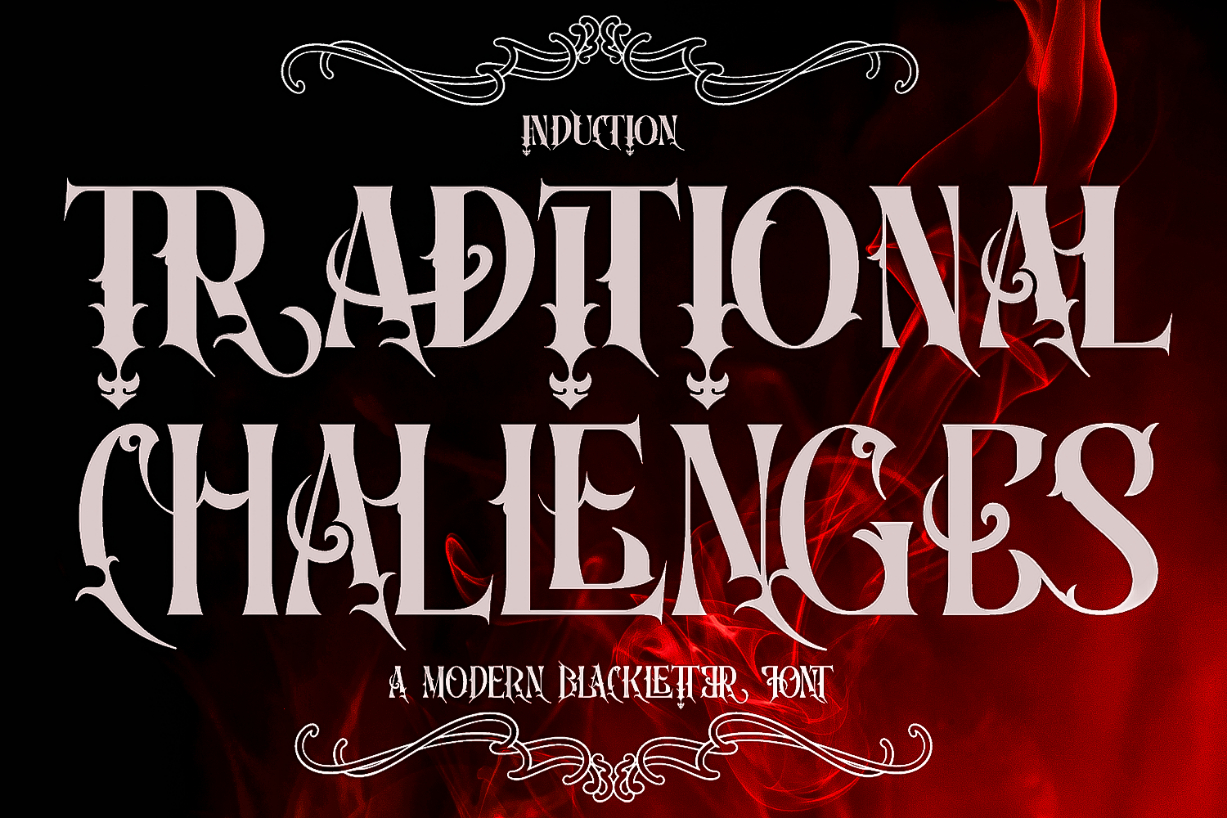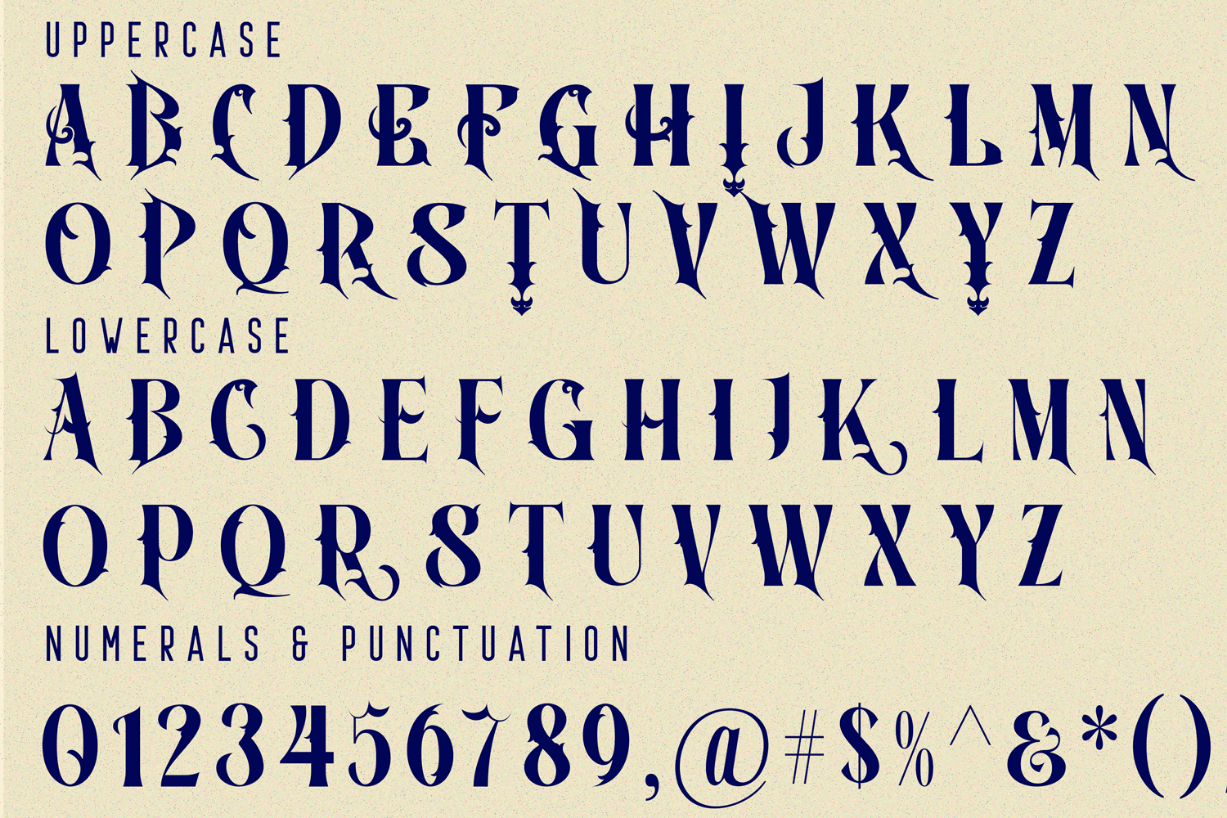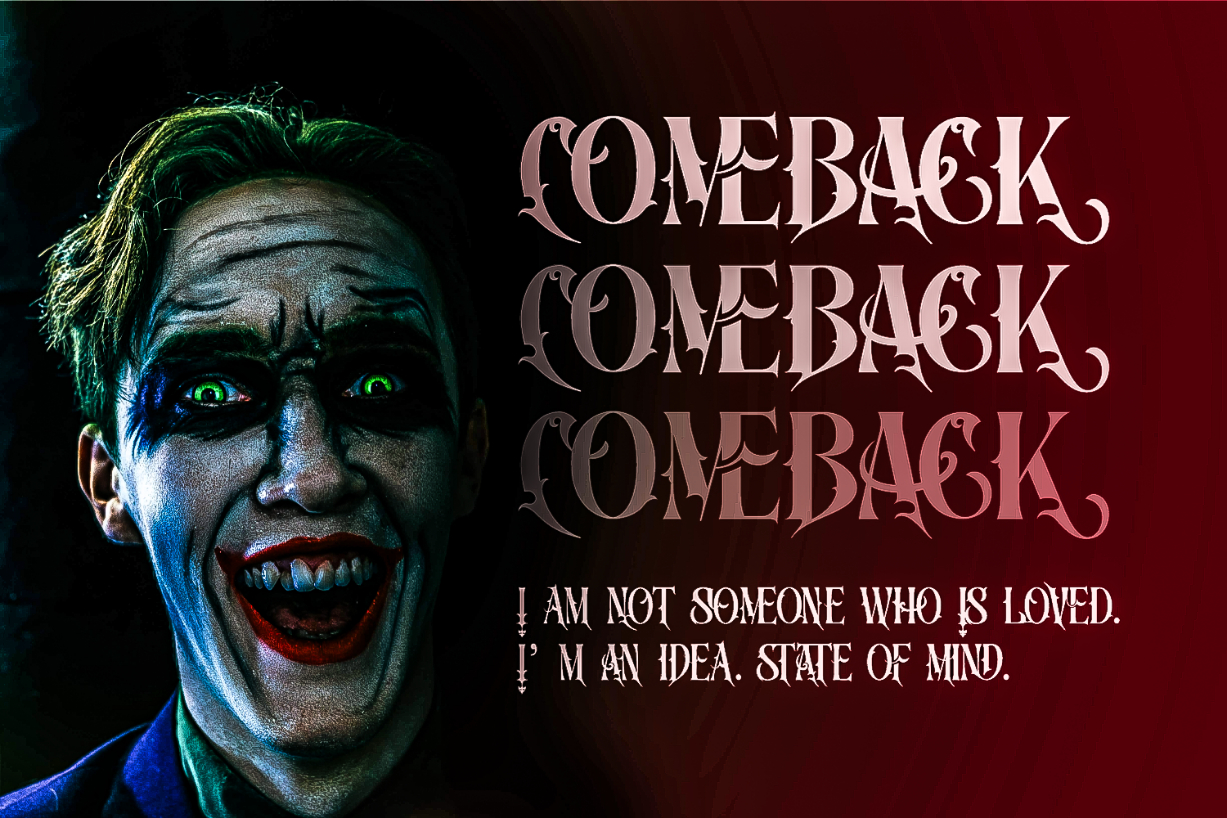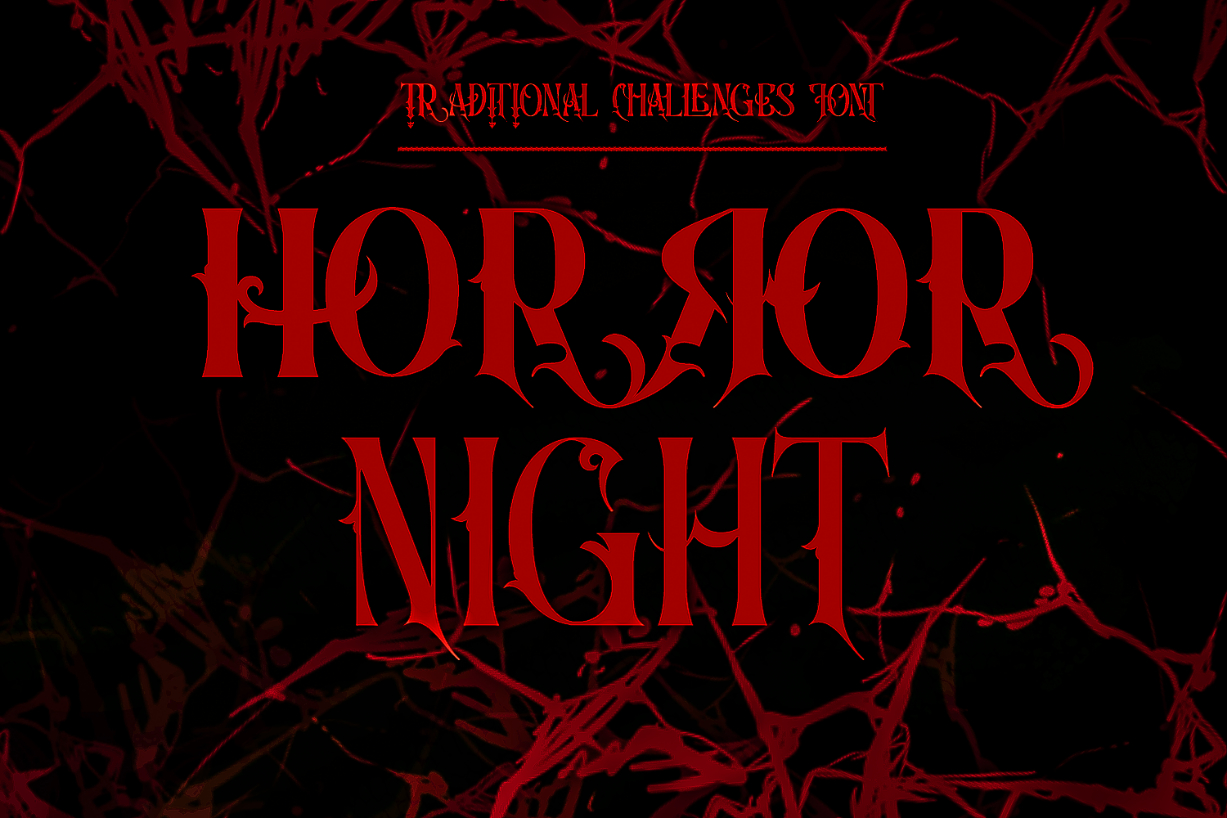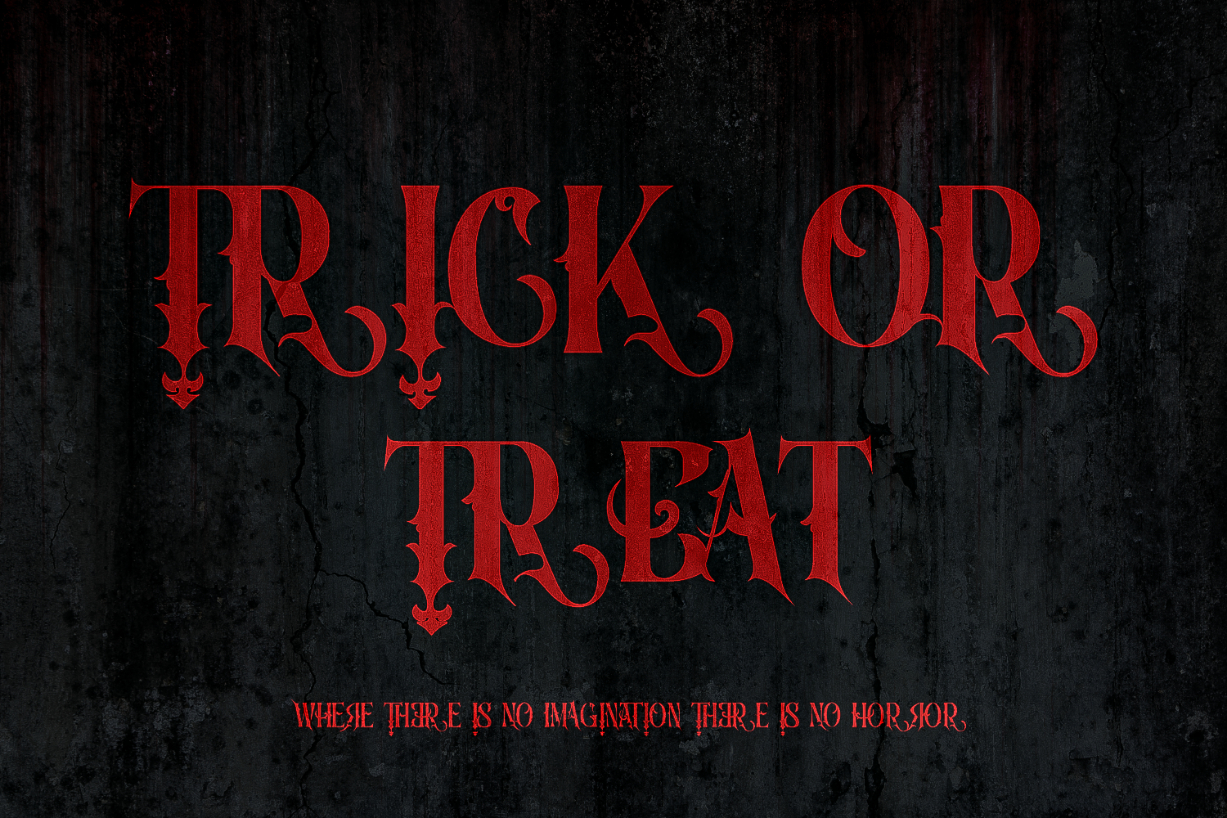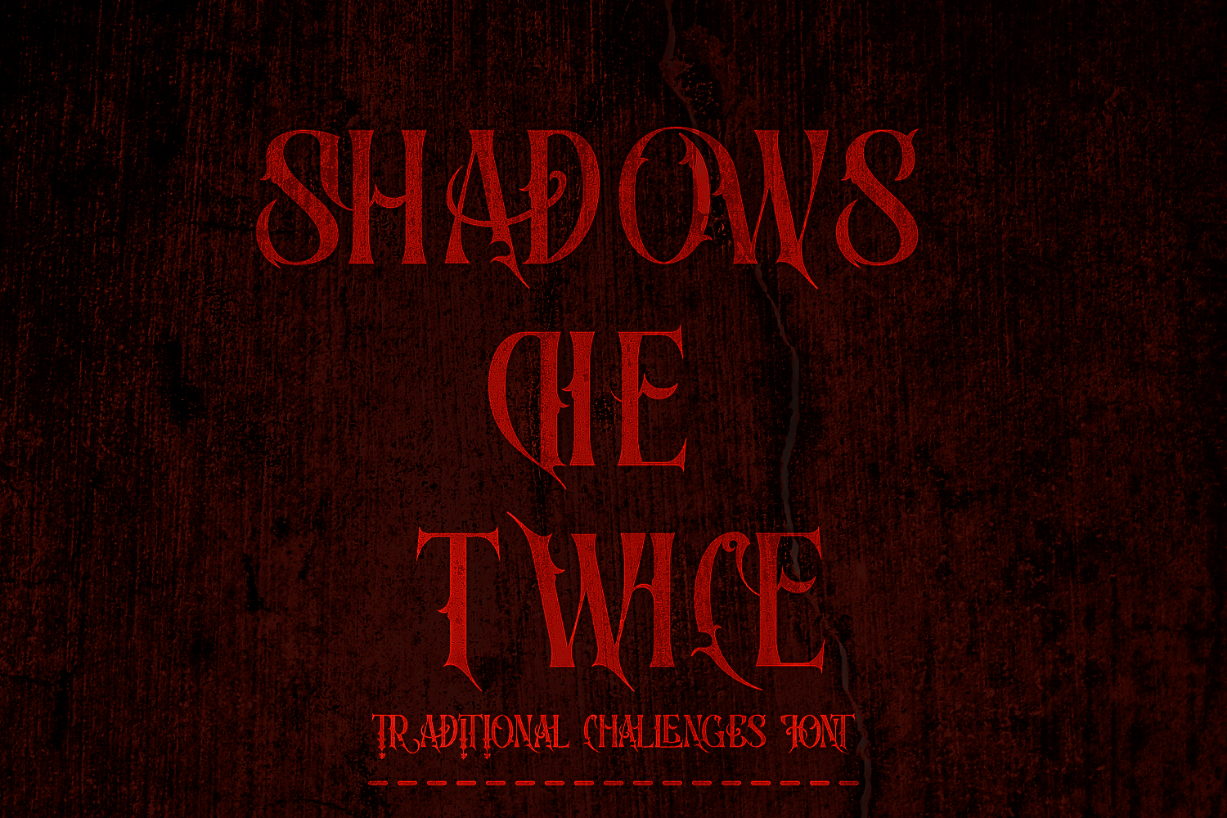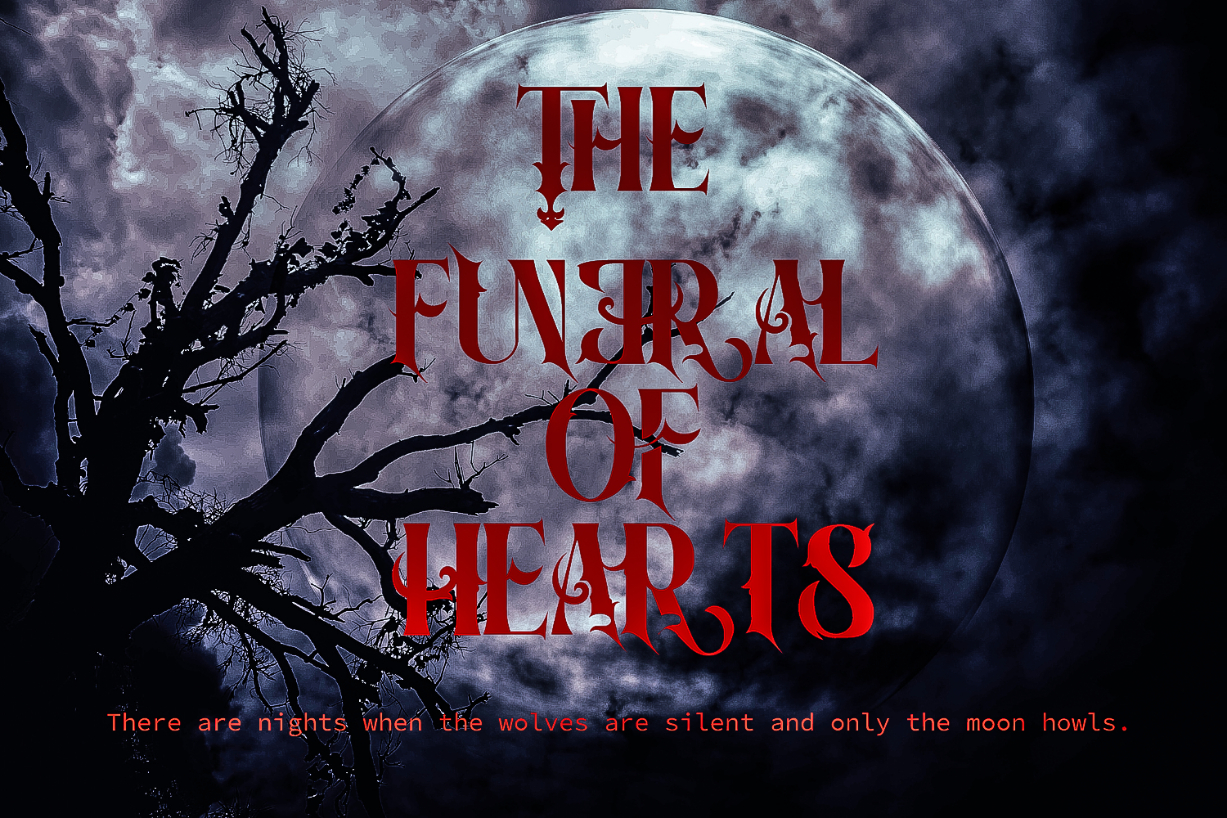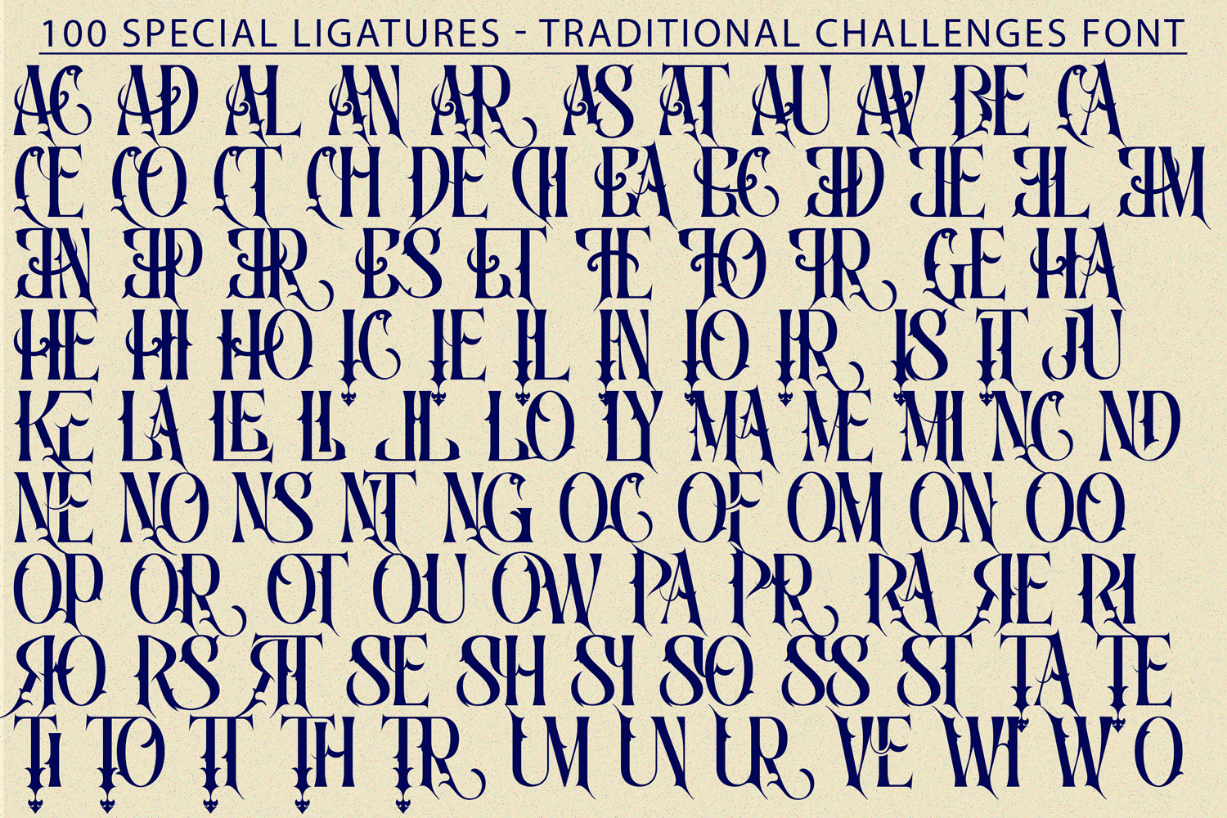
About Traditional Challenges Font
Traditional Challenges Font is an unique font with a vintage, Victorian feel with lots of decorative elements. An incredibly authentic and daring blackletter font. Add this font to your favorite creative ideas and notice how it makes them stand out! OpenType features support stylistic alternate characters to give a unique personality to the typography composition. Suitable for display needs such as signage, poster, logo, label, headline, cover design, etc.
Traditional Challenges was built with OpenType features and includes 100 ligatures, alternate, numbers, punctuation, and it also supports other languages.